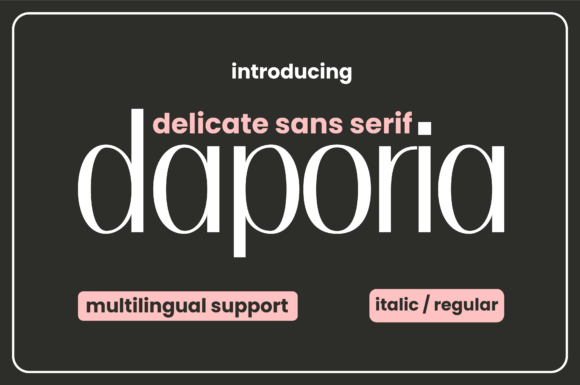
Daporia, Decorative Font for Logos & Posters
Daporia is a refined sans‑serif font offering a minimalist and contemporary aesthetic. Its smooth letterforms deliver a modern, clean look that works beautifully for branding, editorial design, packaging, posters, and social media graphics. As a digital font asset, it integrates seamlessly into design‑software and crafting workflows.
- Minimal, versatile letterforms that suit a wide range of design styles